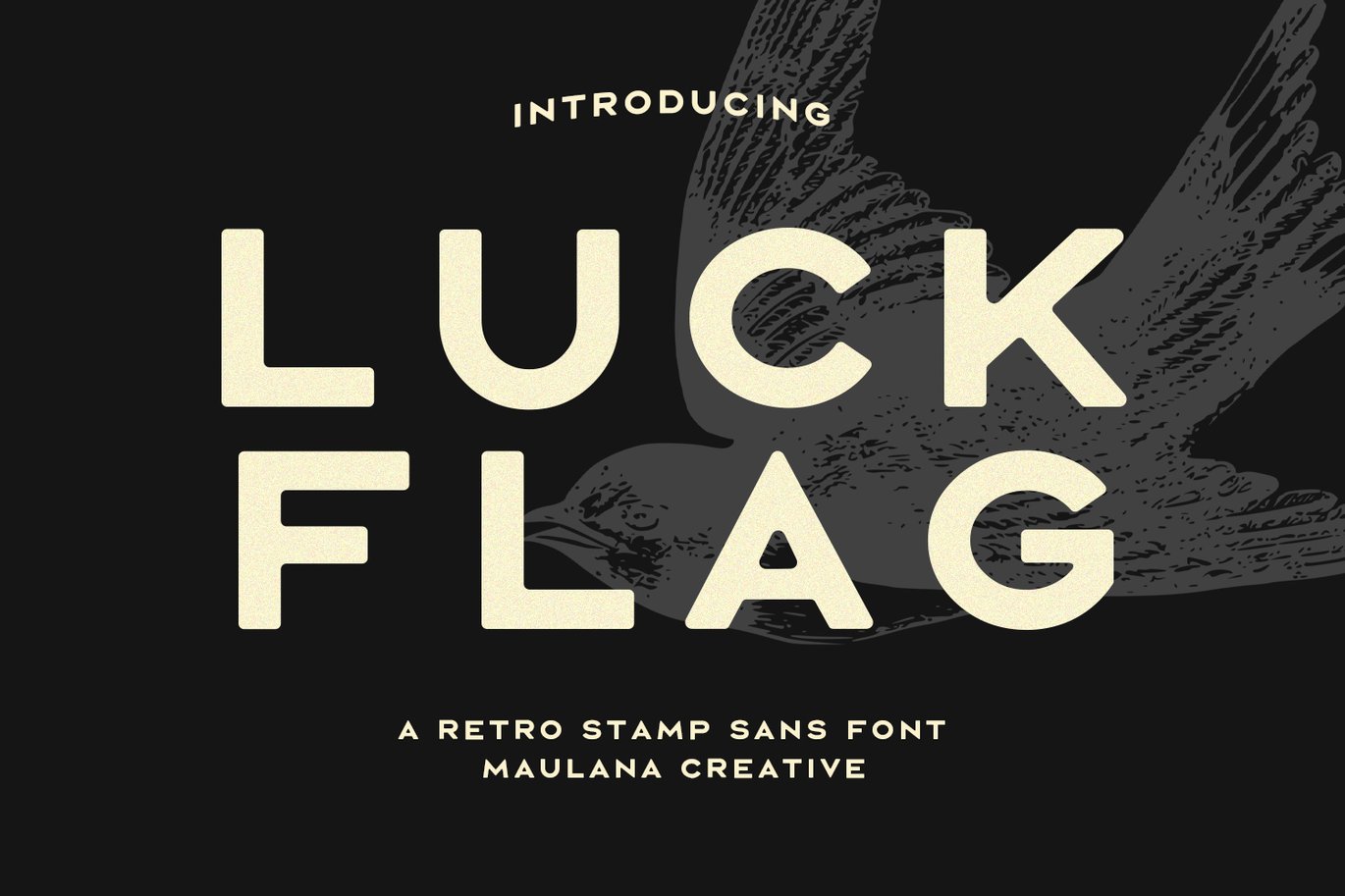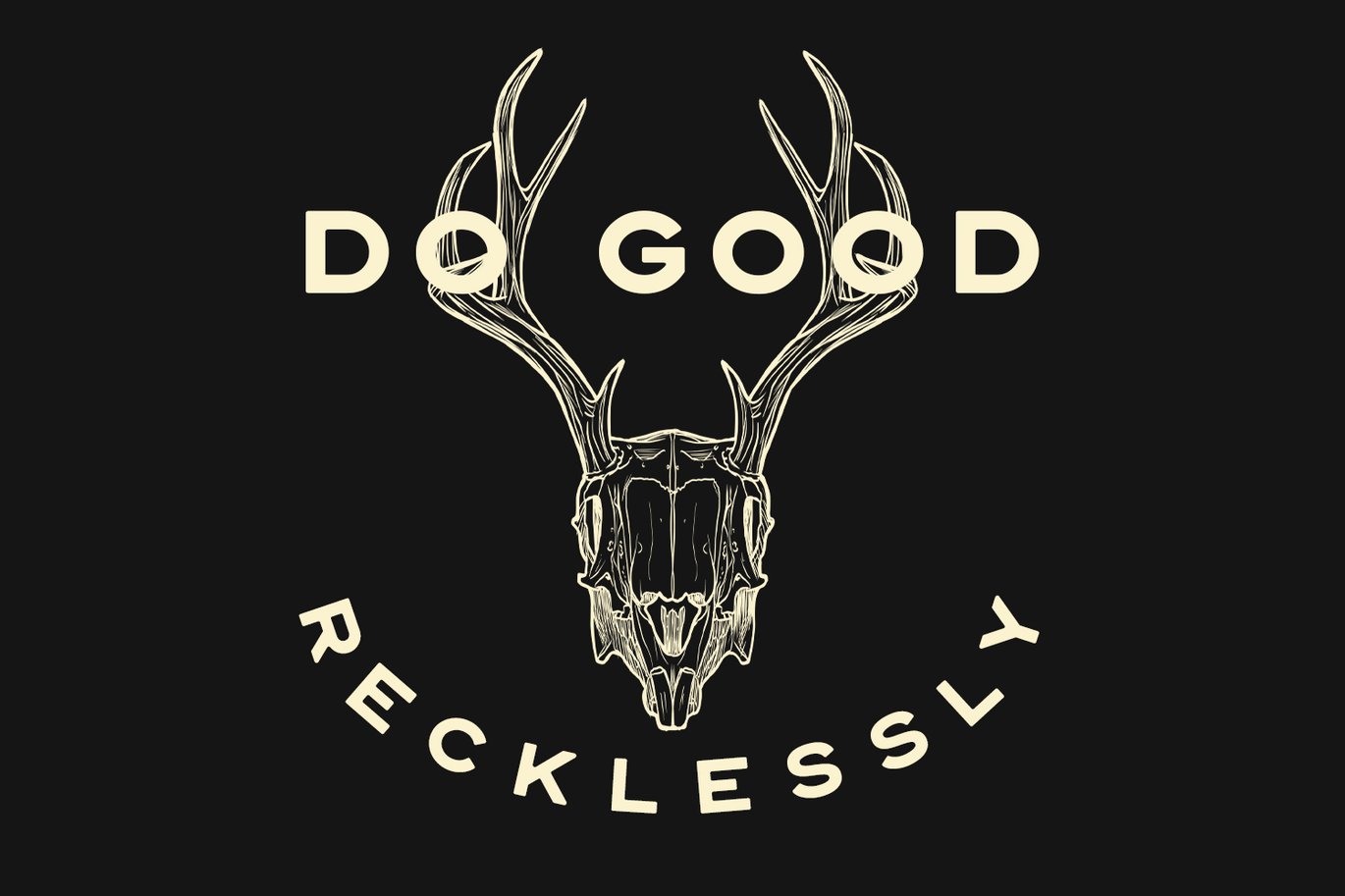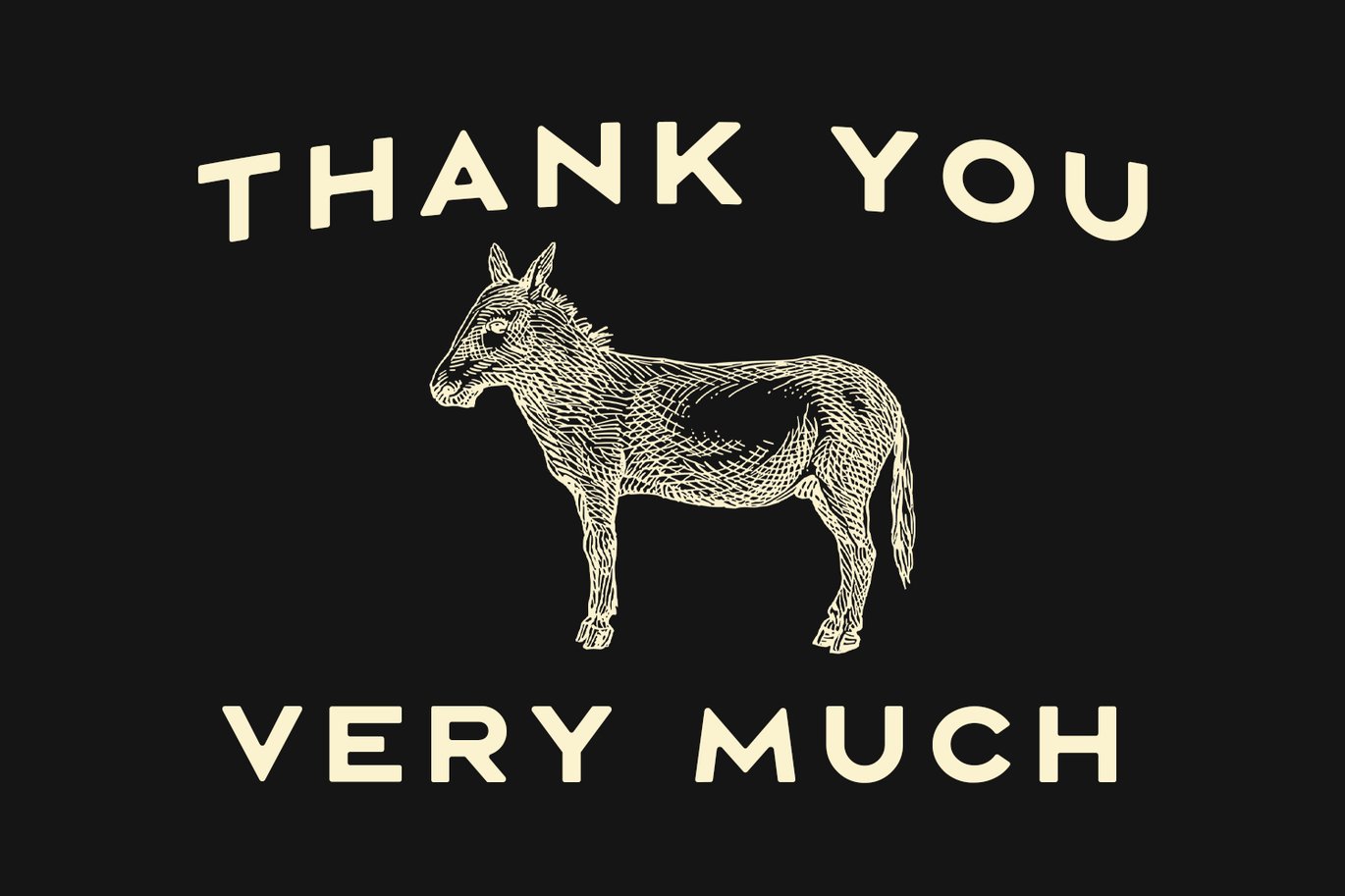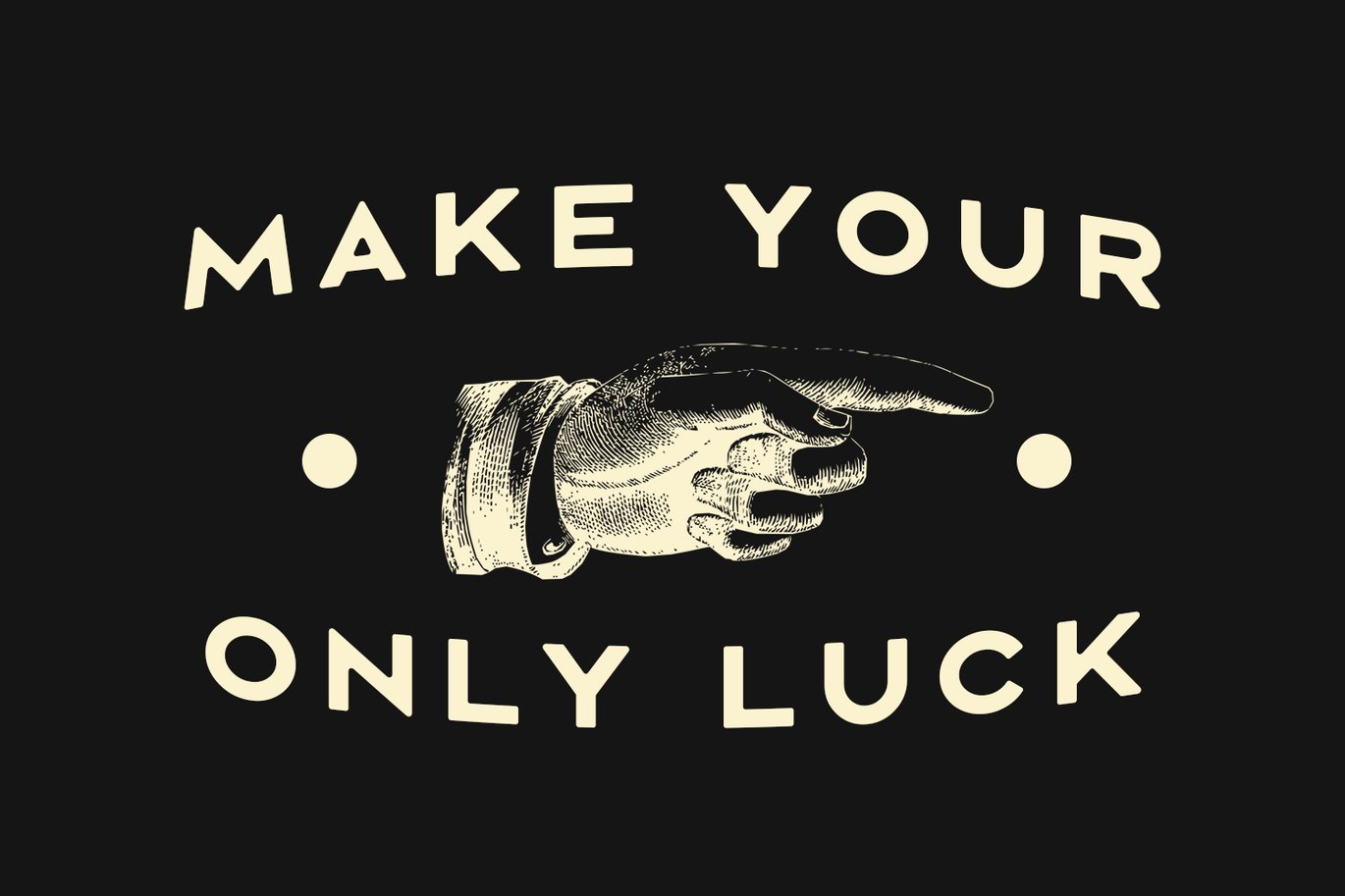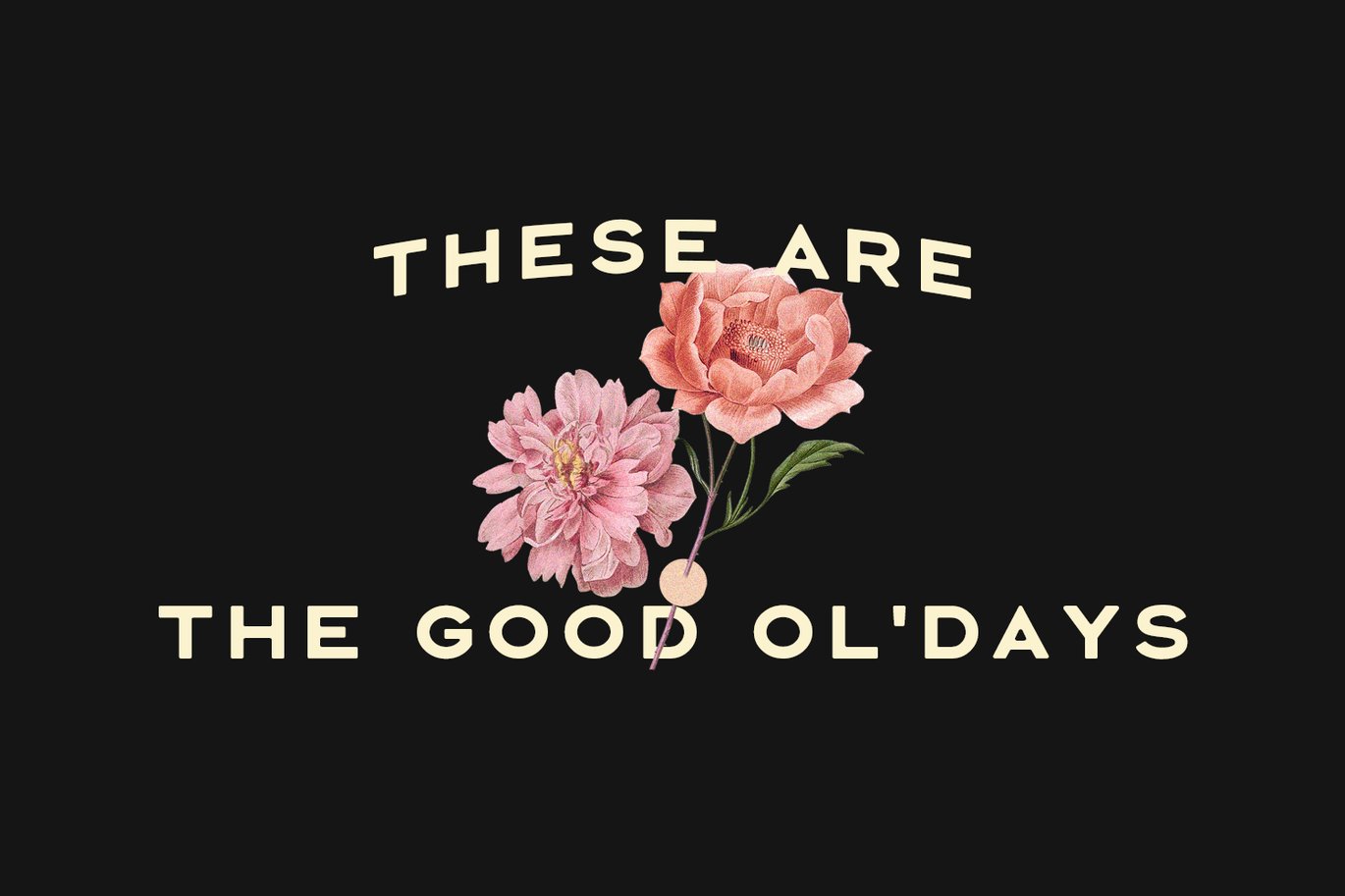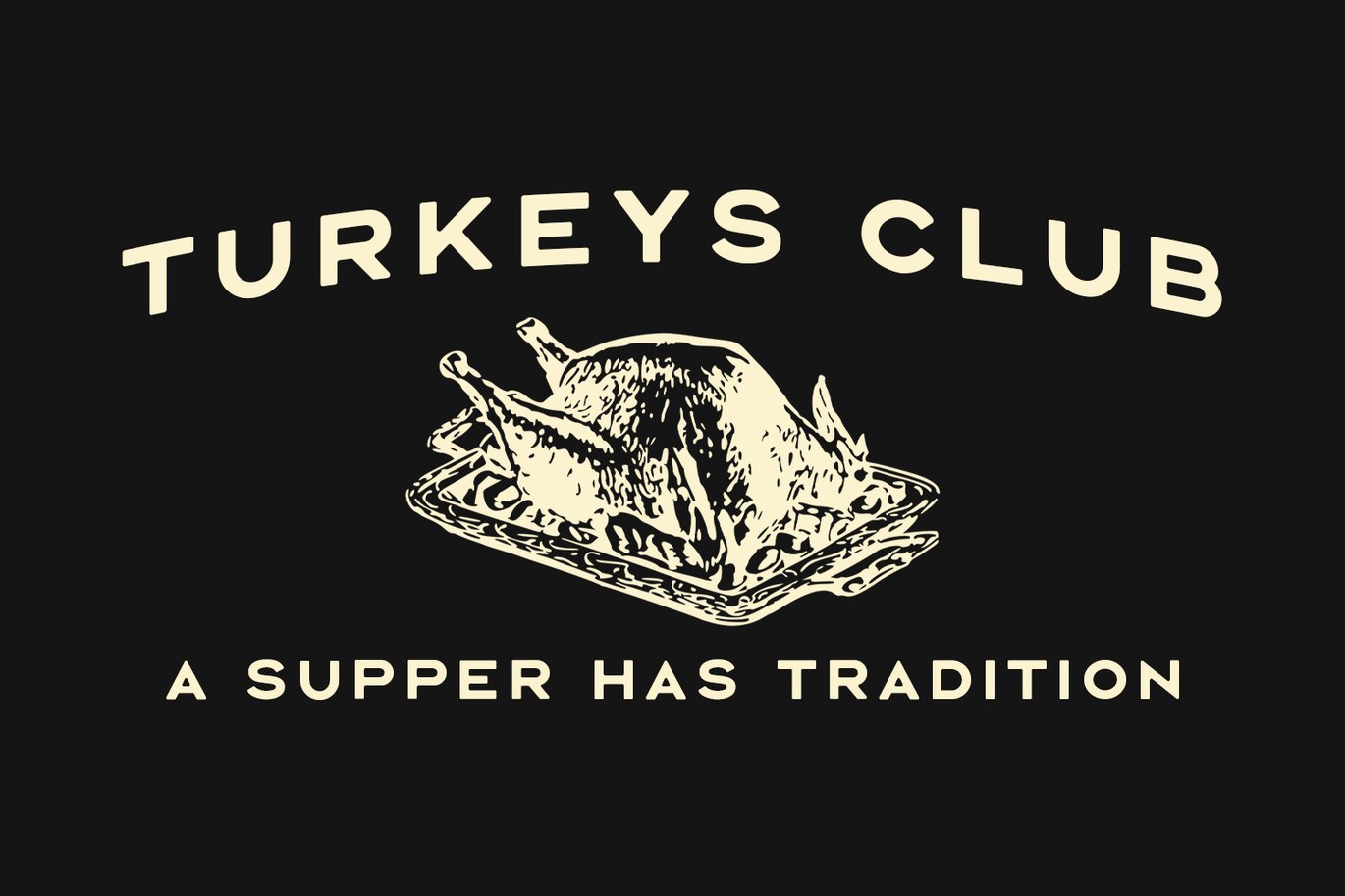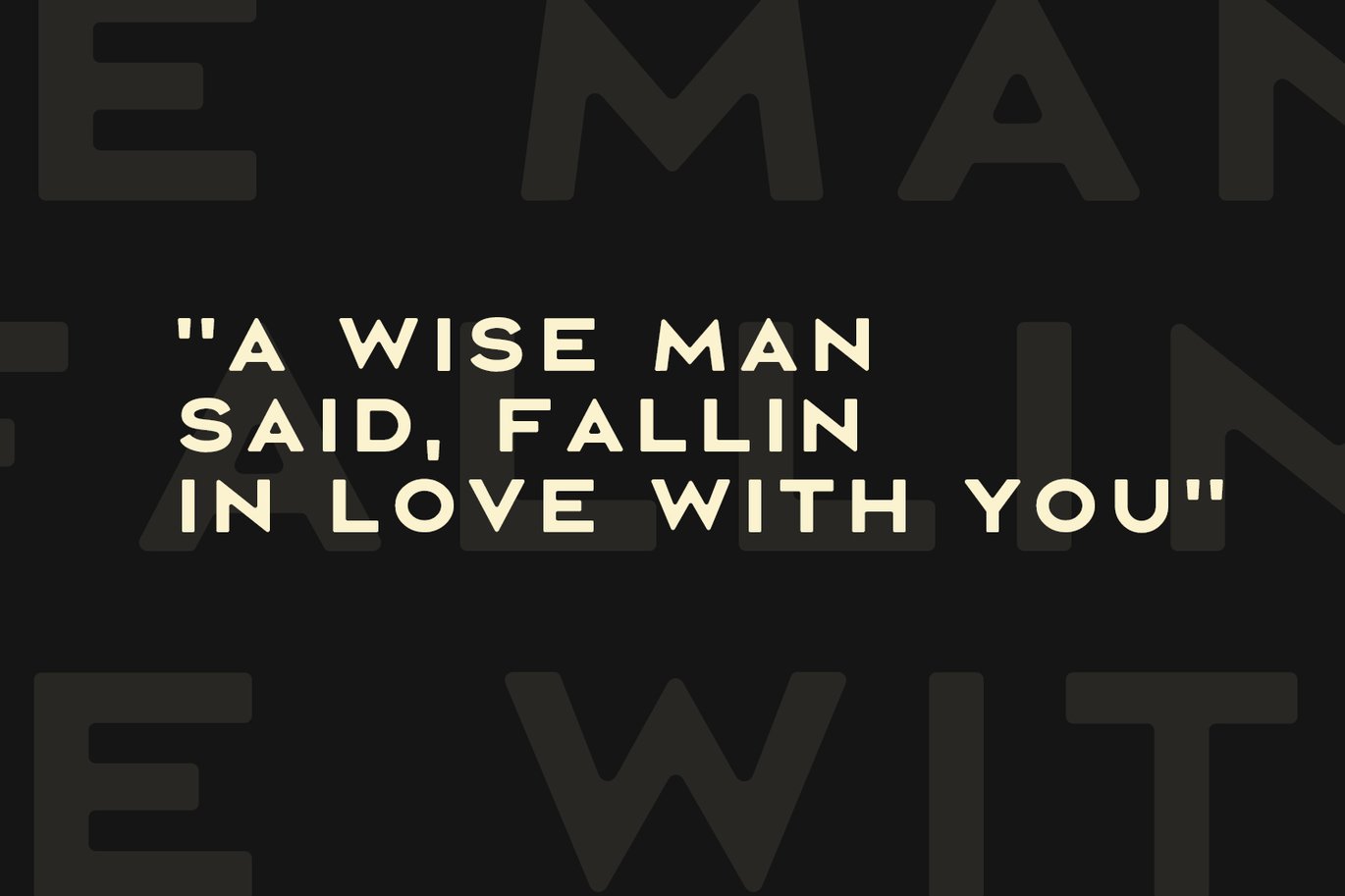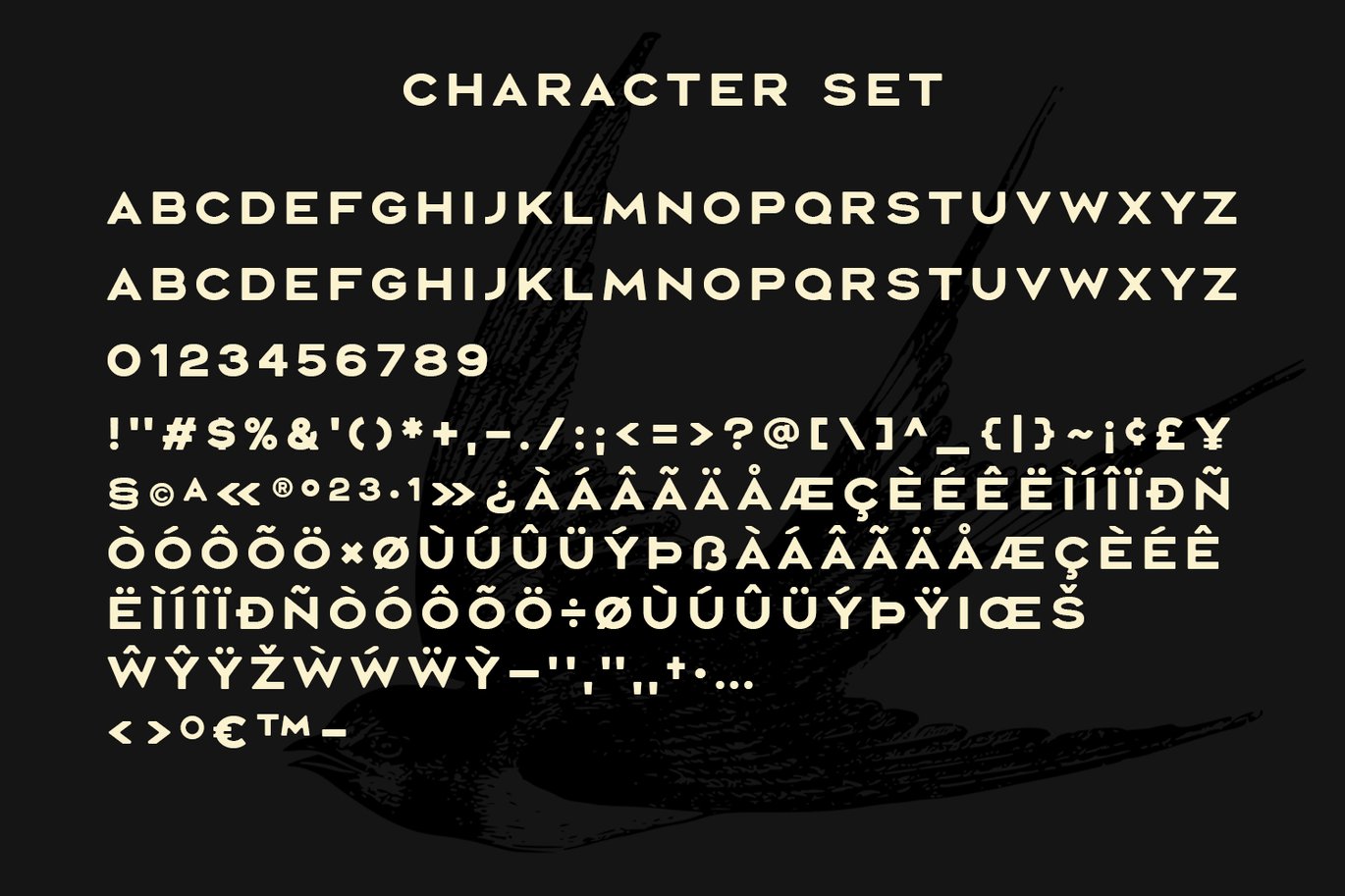
Luck Flag Retro Stamp Sans Font
Luck Flag is a retro stamp effect sans serif font. With medium low contrast stroke, fun character with a bit of ligatures and alternates. To give you an extra creative work. Luck Flag font support multilingual more than 100+ language. This font is good for logo design, Social media, Movie Titles, Books Titles, a short text even a long text letter and good for your secondary text font with sans or serif. Make a stunning work with Luck Flag font.